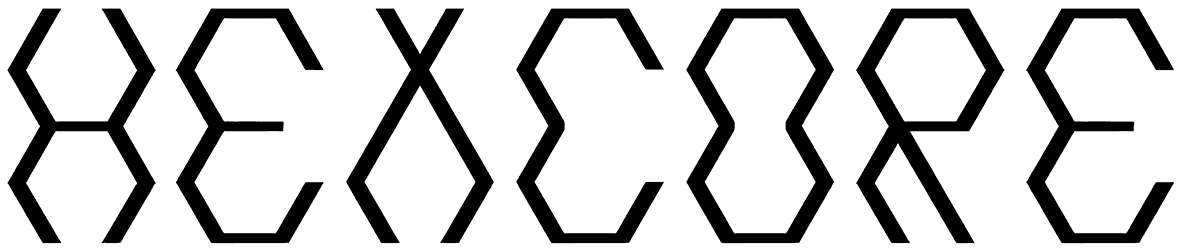
Hexcore Font
If you ask for a distinct and eye-catching style for your words, we offer you to see this bee font. With hexagon forms of letters, the Hexcore font can make your layout memorable, but consider that they are kinda unreada…
If you ask for a distinct and eye-catching style for your words, we offer you to see this bee font. With hexagon forms of letters, the Hexcore font can make your layout memorable, but consider that they are kinda unreadable. Some lowercase letters and uppercase letters are not available, but this geometric font would be amazing for various projects, like a garden-themed poster.